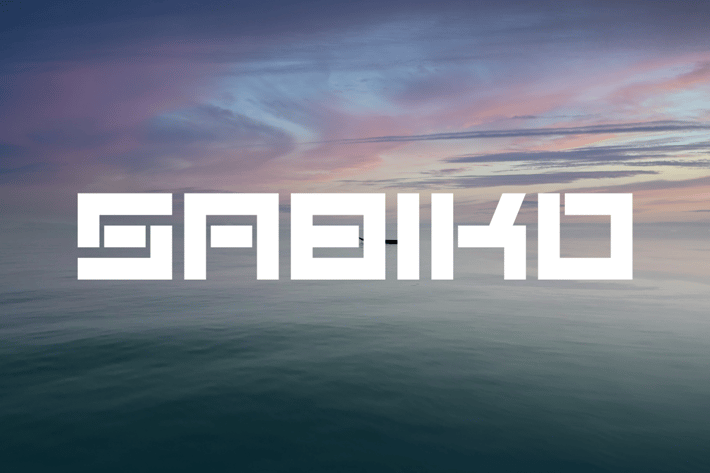
SABIKO Font
Introducing our new product SABIKO Font - Modern Font
SABIKO Font - Modern Font is a bold and authentic display font. The font is suitable for any branding project like logo, t-shirt printing, esport, and many more. outstanding in a wide range of contexts.